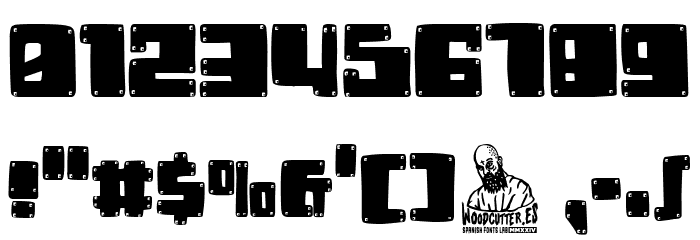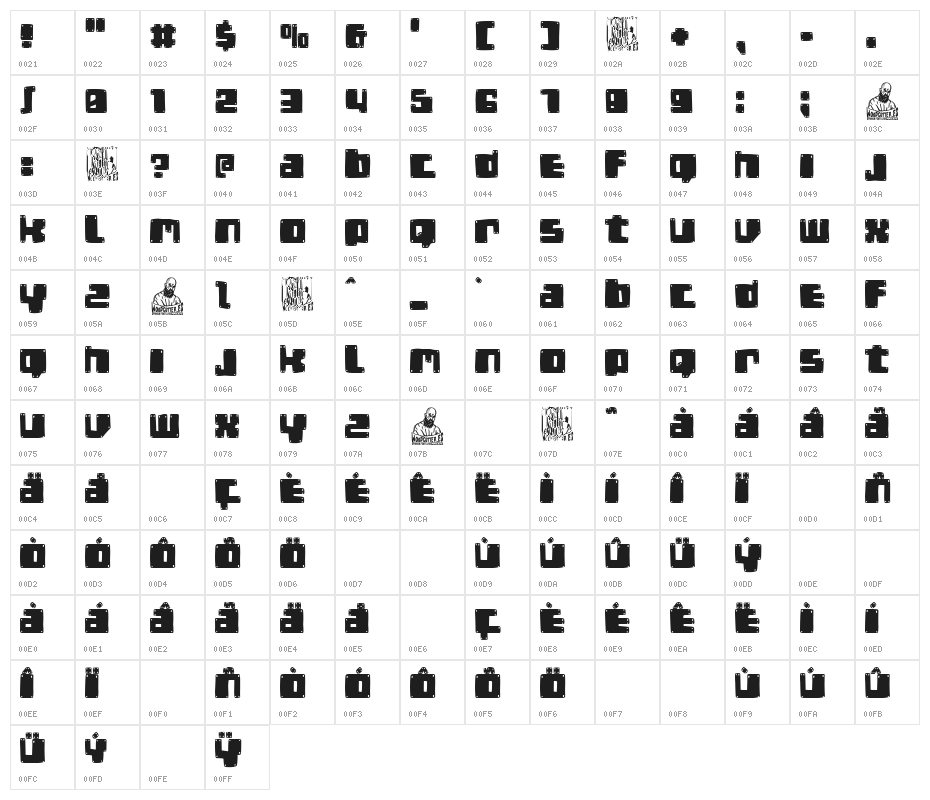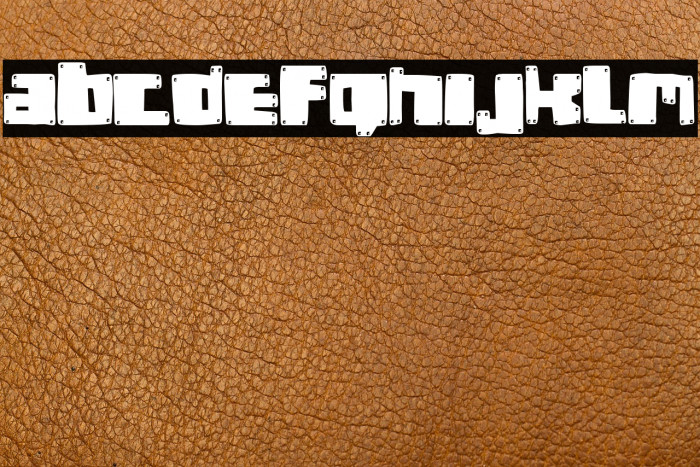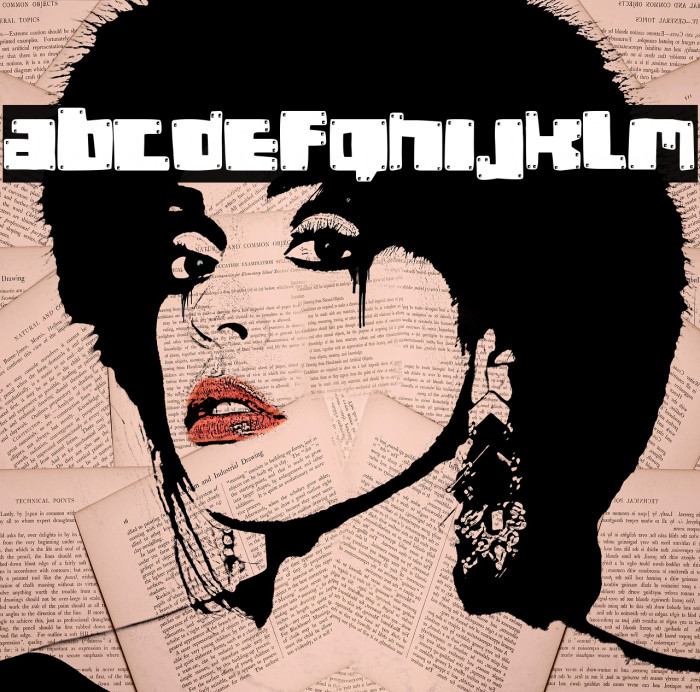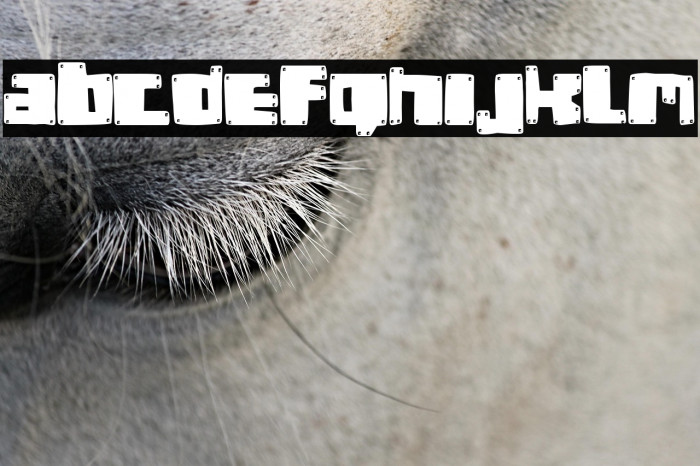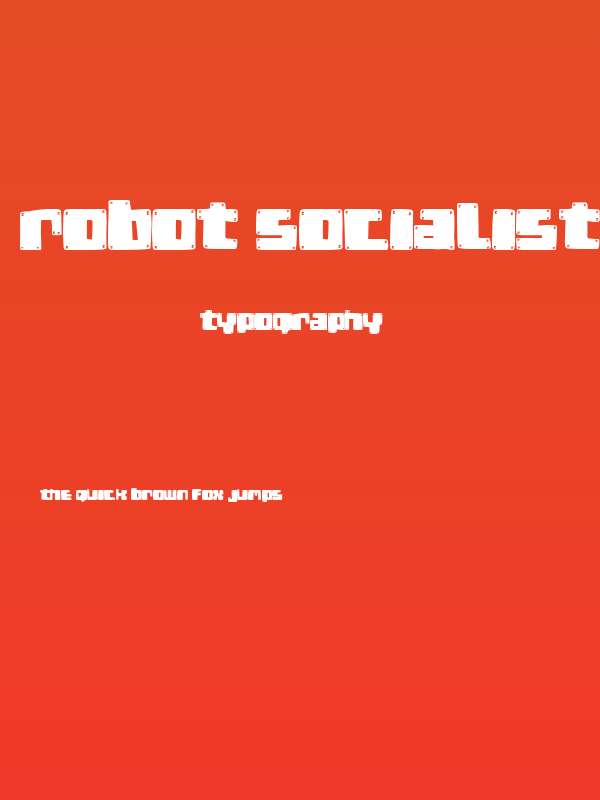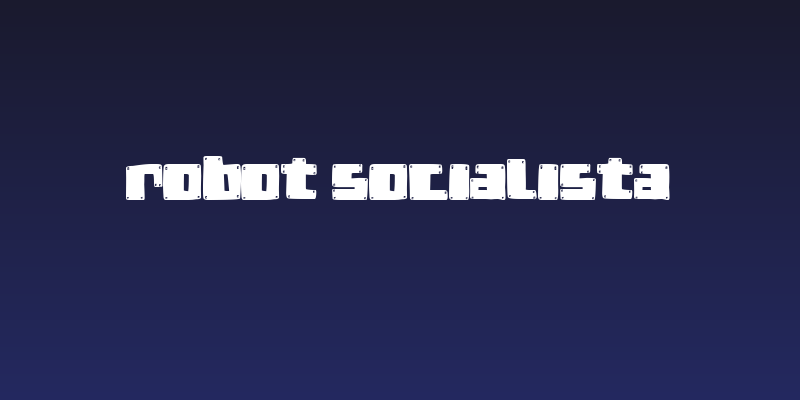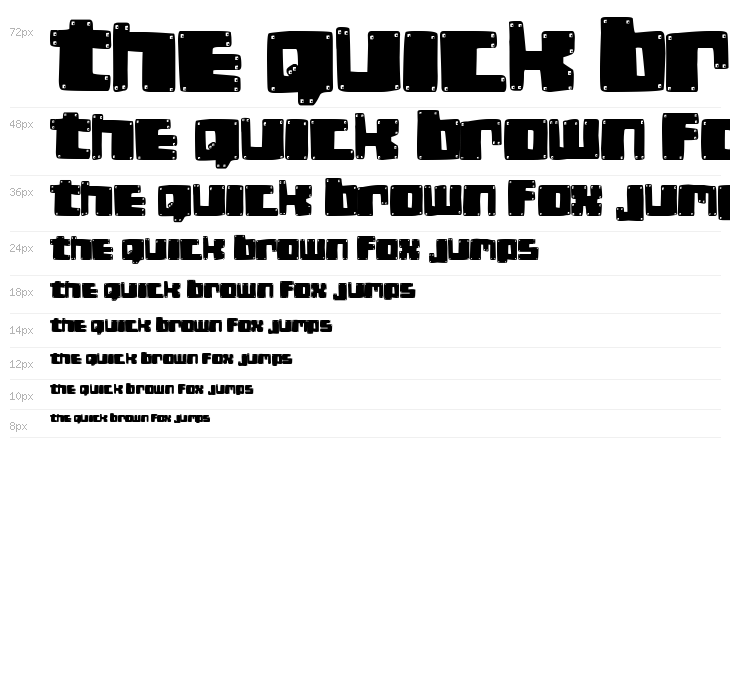
Robot Socialista Font
Robot Socialista Description
This font features a bold, industrial design with a mechanical aesthetic. The characters are constructed with a blocky, geometric style, incorporating small circular cutouts that give a riveted, robotic appearance. The uppercase and lowercase letters maintain a consistent width, contributing to a uniform look. The numbers and special characters follow the same design principles, ensuring cohesion across all glyphs. This font's unique style is reminiscent of machinery and technology, making it stand out with its distinctive, futuristic vibe.
| Overall Style | Futuristic, Industrial |
| Proposed Projects | Ideal for technology-themed projects, sci-fi posters, video game titles, and industrial branding. |